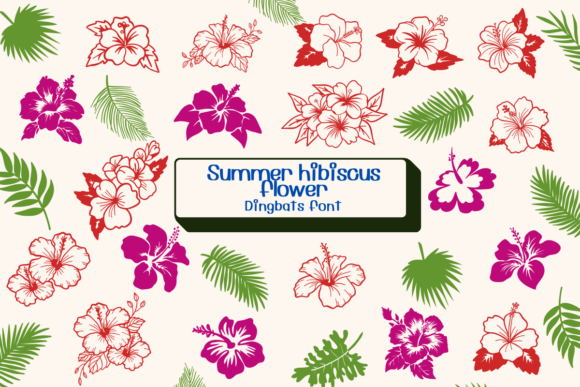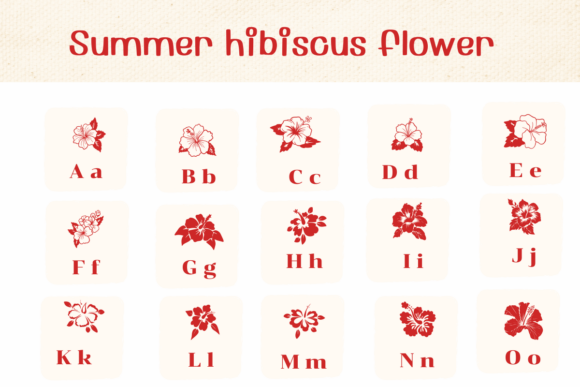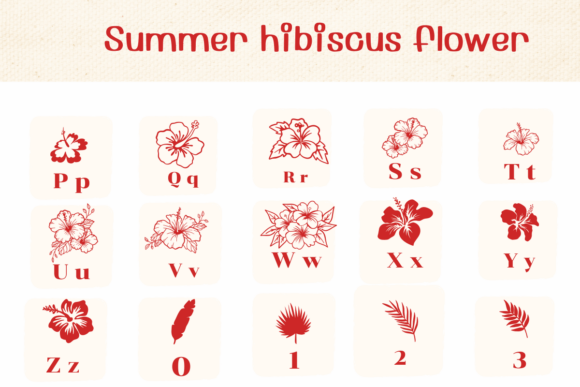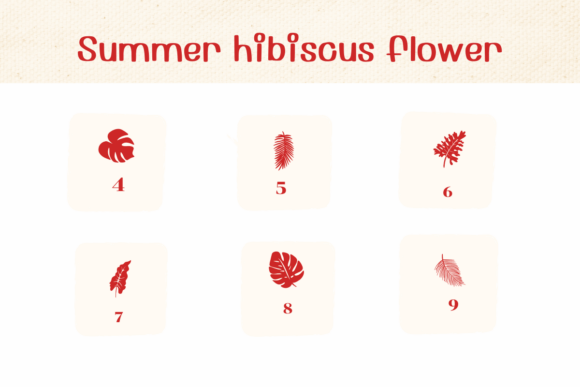
Summer Hibiscus Flower Font
About the Summer Hibiscus Flower Font
Unleash your creativity with Summer Hibiscus Flower Font, a versatile font perfect for a wide range of applications. Summer hibiscus flower is a dingbats font with a sketched style. This font can enhance your creative projects such as wedding invitations, DIY, crafts, decorations, logos, and many other creative ideas.
Summer Hibiscus Flower Font Usage Examples
Summer Hibiscus Flower Font Example